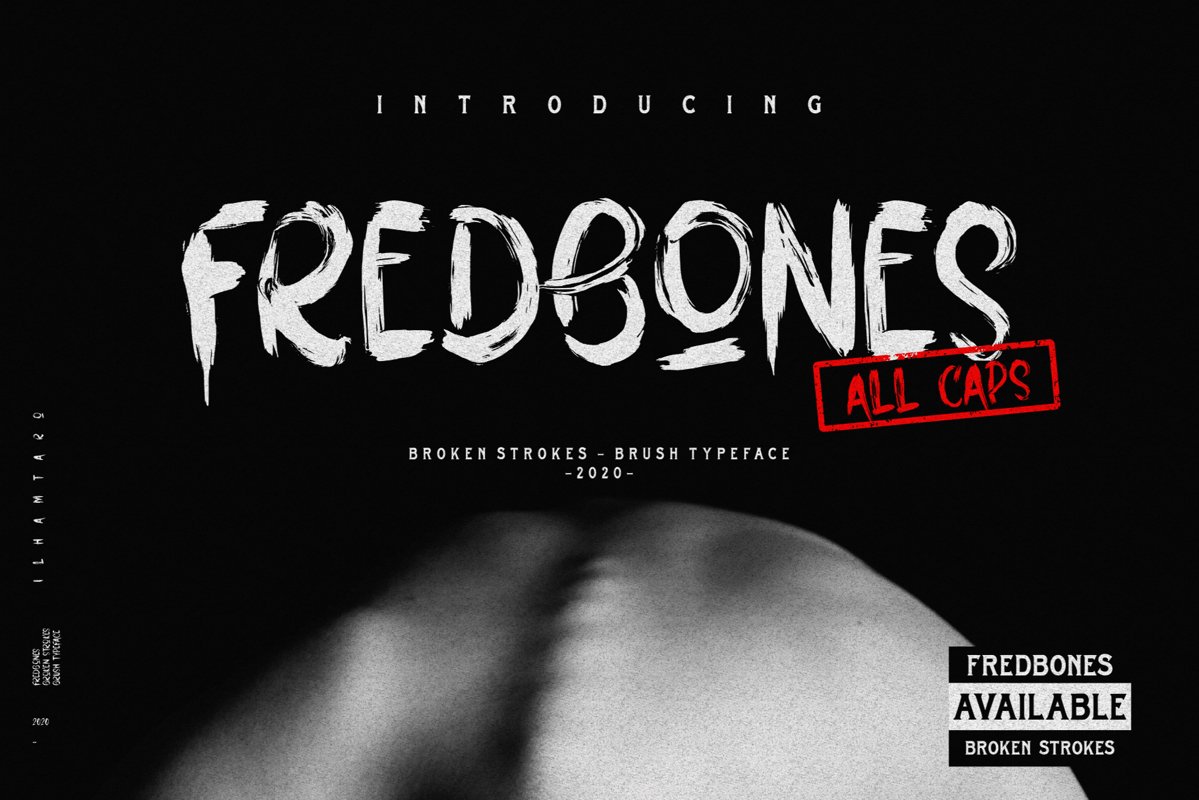
Fredbones
FREDBONES is a brush font with free strokes, but produces brush styles that can be included in gothic styles, modern styles and more.
Fredbones is a font with the type of All Caps, so it has a strong and free impression. It would be very suitable for mystery movie titles, horror, monsters, zombies, besides that it is also good for branding, social media, print etc.